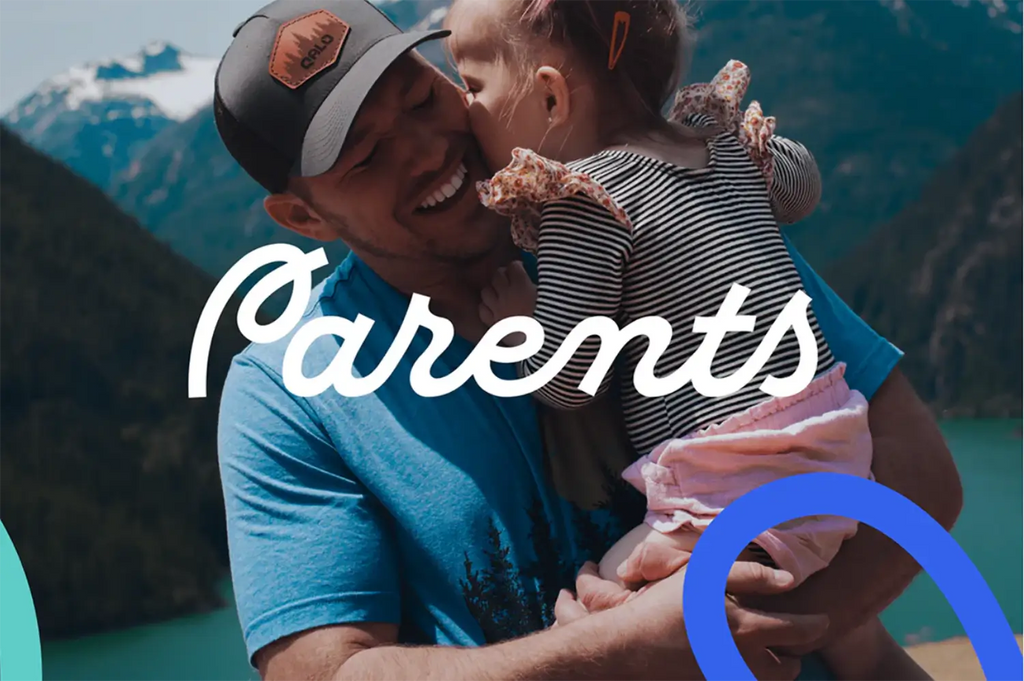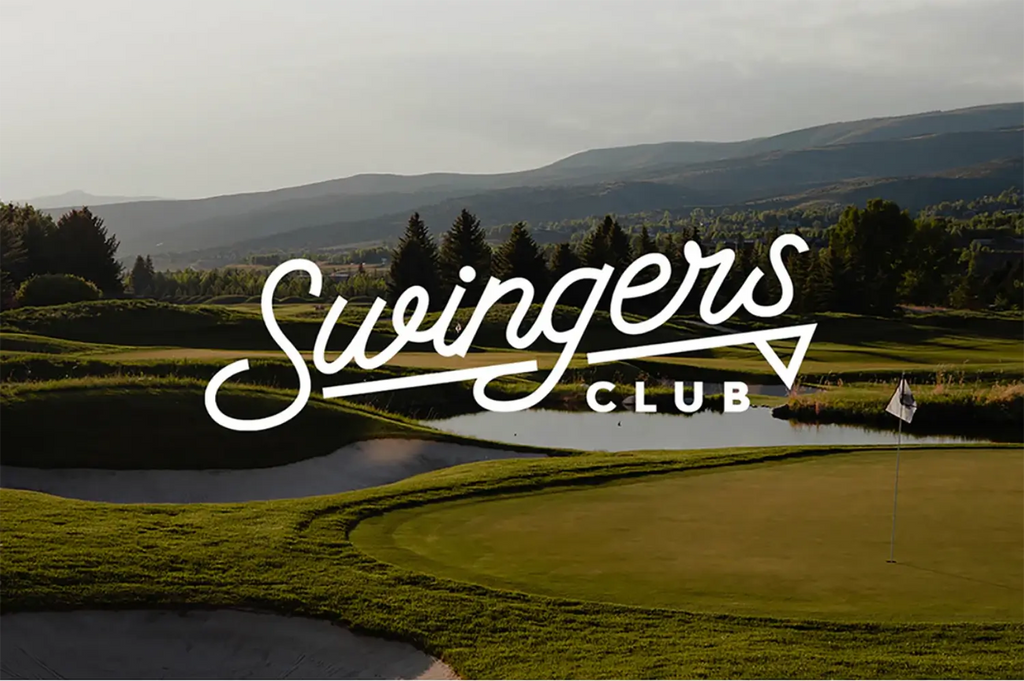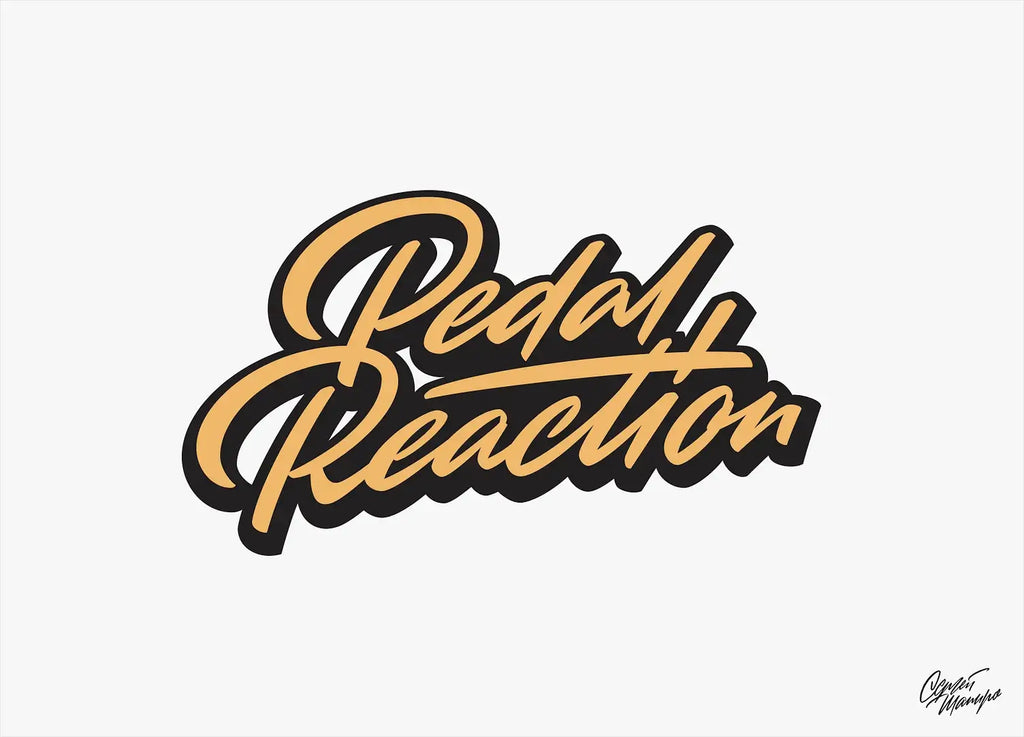
Discovering The Benefits of Cursive Fonts For Logo Designs
In the realm of branding and visual identity, the choice of font plays a pivotal role in shaping a brand's image and its connection with the target audience. Cursive fonts, known for their elegant loops and fluid strokes, offer a distinct style that can transform a simple logo into a striking and memorable piece of art. These fonts are more than just a design choice; they encapsulate emotions, values, and the essence of a brand in a single, cohesive visual statement. This article explores the multifaceted benefits of utilizing cursive fonts in logo designs, demonstrating how they can enhance brand perception, evoke emotional responses, and ensure lasting impressions.
Whether aiming to convey luxury, friendliness, or a vintage charm, cursive fonts provide designers with a powerful tool to create logos that not only stand out but also resonate deeply with consumers. Let's delve into the specific advantages that make cursive fonts a preferred choice for innovative and impactful logo design.
Enhancing Brand Elegance
The strategic use of cursive fonts in logo designs significantly amplifies a brand's elegance, imbuing it with a sense of sophistication and grace. These fonts are characterized by their flowing lines and organic forms, which mimic the fluidity of human handwriting. This natural elegance stands out in the corporate world, where angular and stark fonts dominate, offering a softer and more refined edge. Cursive fonts work exceptionally well for brands that want to project luxury, high quality, and exclusivity. For instance, luxury brands in the fashion and jewelry sectors frequently employ cursive typography to emphasize their upscale nature.
Moreover, cursive fonts can make even the simplest logo appear crafted with meticulous attention to detail, thereby elevating the overall aesthetic and drawing the viewer's eye. This not only enhances visual appeal but also strengthens brand identity by associating the logo with high-end values and quality craftsmanship.
Creating a Personal Touch
Cursive fonts possess the unique ability to add a personal touch to logo designs, making a brand appear more approachable and personable. The fluidity and expressiveness of cursive writing mirror human handwriting, suggesting a human element behind the brand. This connection can be particularly effective for businesses that prioritize customer relationships and personalized services, such as boutiques, artisan shops, and service-oriented enterprises. By employing cursive fonts, these companies communicate warmth and accessibility, inviting potential customers to engage on a more personal level.
Additionally, cursive fonts often suggest bespoke services, where each client's needs are thoughtfully considered and met with a high degree of customization. This approach not only attracts consumers looking for unique and personalized experiences but also fosters a deeper emotional connection with the brand, enhancing customer loyalty and engagement.
Improving Brand Recall
Utilizing cursive fonts in logo designs can significantly enhance brand recall by creating distinctive and memorable visual identities. The unique forms and elegant sweeps inherent in cursive writing ensure that a logo remains etched in the minds of consumers. Unlike more common sans-serif or block fonts, cursive typefaces offer a level of uniqueness that can make a brand instantly recognizable. This memorability is crucial in today’s competitive market, where consumers are bombarded with countless brands daily. A cursive font, with its distinctive loops and curves, can encapsulate a brand's essence in a way that is not only visually appealing but also easy to recall.
For example, a logo that features cursive fonts often stands out in advertisements, on business cards, and digital platforms, thereby reinforcing brand identity across various media. The psychological impact of this stylization means that consumers are more likely to remember and think of the brand when making purchasing decisions, directly influencing customer retention and loyalty.
Source: Thankh Thinh, Swinger Club - Golf Branding, Behance, https://www.behance.net/gallery/147604305/Swingers-Club
Conveying Emotion
Cursive fonts are particularly effective in conveying emotions through logo designs, making them a powerful tool for emotional branding. The fluidity and grace of cursive writing can evoke feelings of warmth, joy, comfort, or nostalgia, depending on the style and context of the font. This emotional connection is essential for brands that want to resonate with their audience on a deeper level. For instance, a cursive logo for a wedding planning business might be designed to evoke feelings of romance and elegance, while a bakery might use softer, rounded cursive fonts to convey warmth and comfort.
The ability of cursive fonts to express these subtle emotional cues enhances consumer engagement by aligning the brand’s visual identity with its emotional message. This alignment helps in building a strong emotional bond between the brand and its customers, which is vital for fostering brand loyalty and encouraging positive word-of-mouth recommendations.
Versatility Across Industries
Cursive fonts hold a unique place in logo design due to their remarkable versatility across a wide range of industries. Whether for a startup café, a tech firm, or a high-end boutique, cursive typography can be tailored to fit various branding needs and aesthetics. This adaptability stems from the vast array of styles within the cursive family—from elegant and formal scripts that convey luxury and sophistication to whimsical and loose hand-written styles that express informality and fun. For instance, in the food and beverage industry, cursive fonts can evoke a sense of warmth and friendliness, ideal for cafes and restaurants looking to create a welcoming atmosphere. In the realm of beauty and wellness, they often symbolize elegance and care, enhancing the overall customer experience.